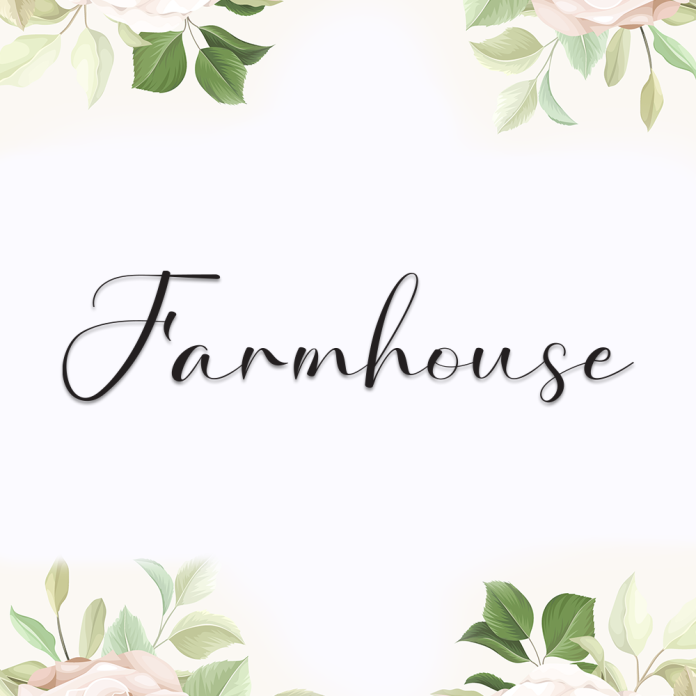
Farmhouse is a charming and cozy handwritten font that brings the warmth of countryside living into your designs. With smooth strokes and a natural, hand-drawn feel, this font evokes a sense of home, simplicity, and rustic beauty.
Perfect for farmhouse-style decor quotes, kitchen signage, greeting cards, logos, and packaging—Farmhouse delivers an inviting and down-to-earth aesthetic.
Handwriting style with rustic and organic flow
Ideal for farmhouse decor, rustic branding, social media, and more
Soft curves and natural baseline for a handmade look
Bring a touch of country charm to your next project with Farmhouse!